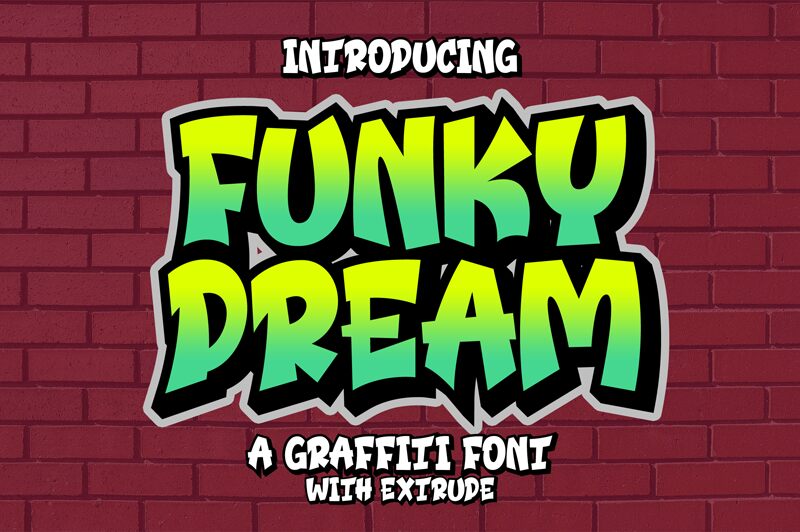
Funky Dream font by Lettersweet Studio is a bold, graffiti-inspired typeface that embodies the groovy vibe of retro art with its unconventional condensed shapes. Energetic and expressive, this vibrant font channels a whimsical spirit ideal for eye-catching designs. Funky Dream inspires creative dynamism with its exceptional aesthetic.
Being free to use in different types of work, this display font can be part of exciting poster designs or retro album covers, memorable logos and branding projects or magazine and book cover designs. Produce fantastic merchandise items that have colorful button pins and stickers or use it on other print goods like paper bags, labels, swing tags for outfits sold by local shops.